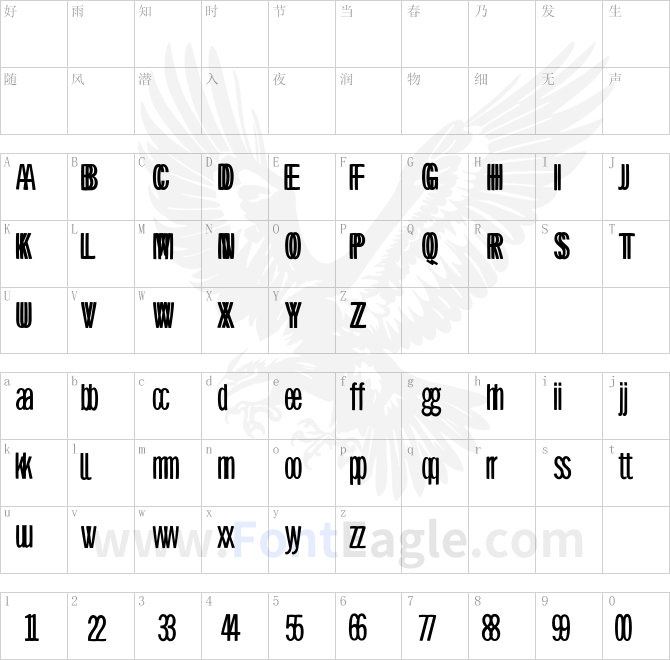
TwinSetSansOne is a great font, widely used in graphic design, single-page menu design, poster design and other fields, and is deeply loved by designers.TwinSetSansOne download.